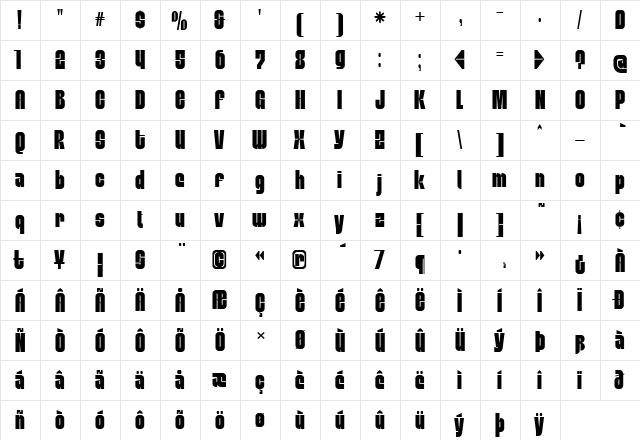
MobleySans Regular
Design Context for MobleySans Typeface
MobleySans offers clean, dependable letterforms without strong stylistic allegiance, making it a practical choice for designers who need flexibility.